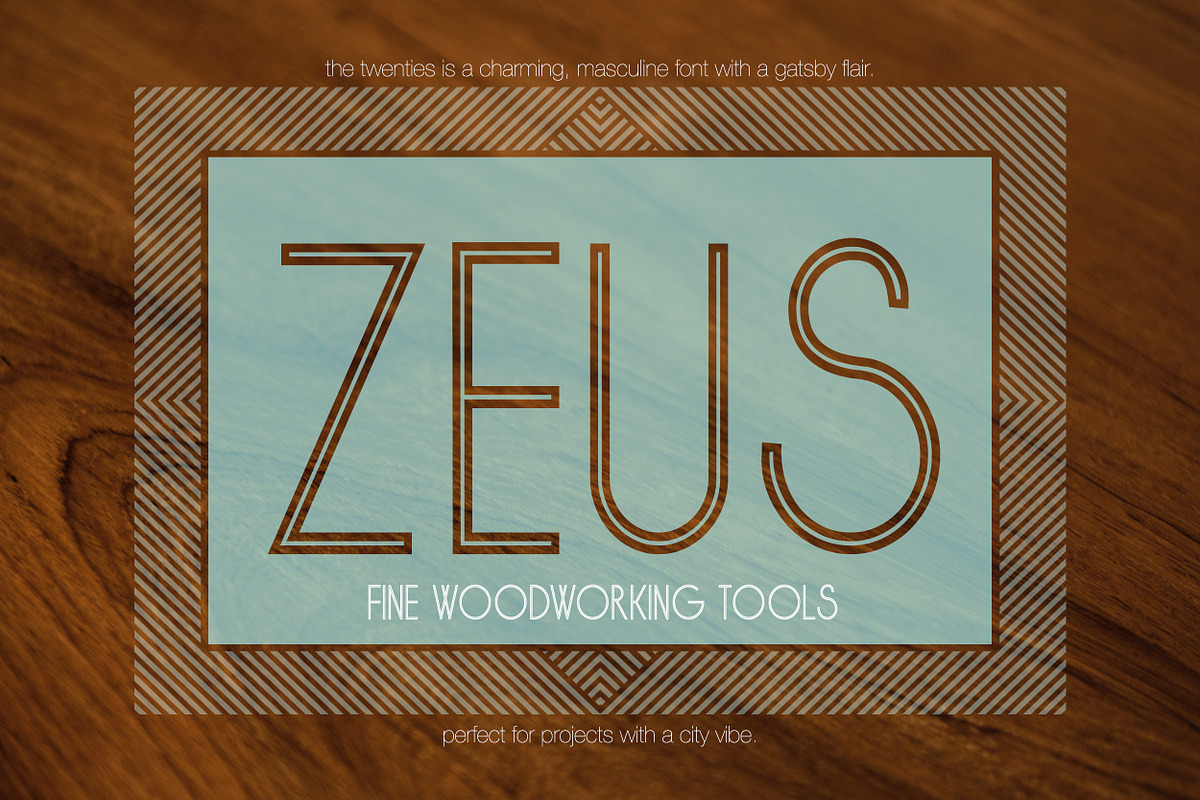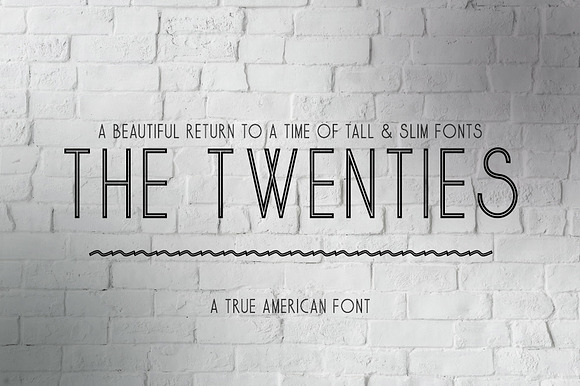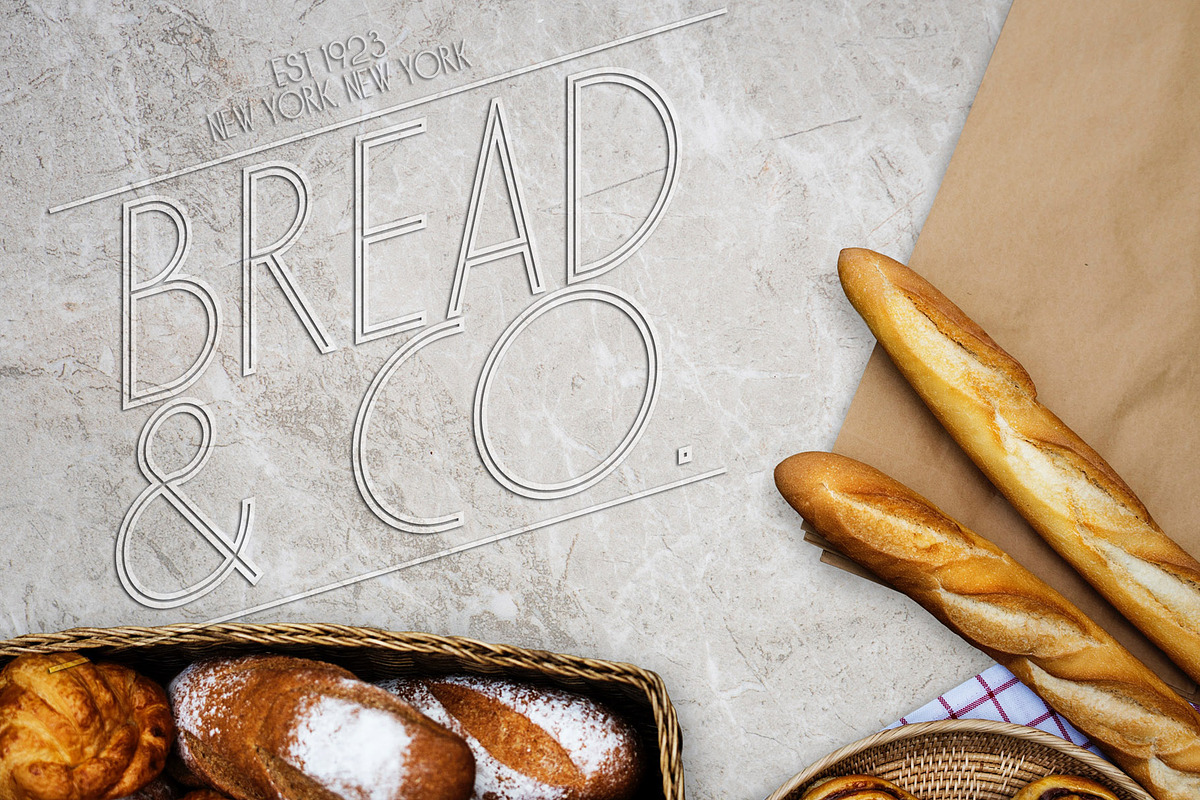
The Twenties - A True American Font
The Twenties captures the essence of that golden era of jazz, mobsters, long sexy cars and noir film. It stands like the Empire State Building, majestic but approachable. It is a true American font with just a touch of the Great Gatsby. It's perfect for catchy logos, anything "city vibe" and print design. It's clean, resizes very well and just looks classy.